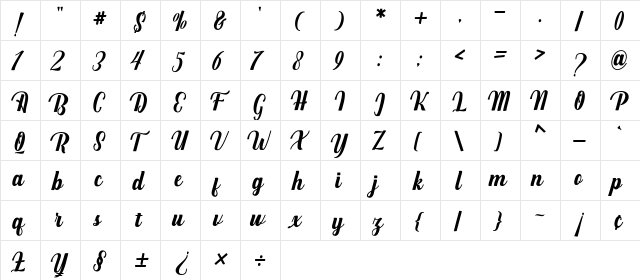
Mighttel Regular
Design Context for Mighttel Typeface
Mighttel is a composed and adaptable typeface that performs quietly and consistently across a wide range of design contexts.